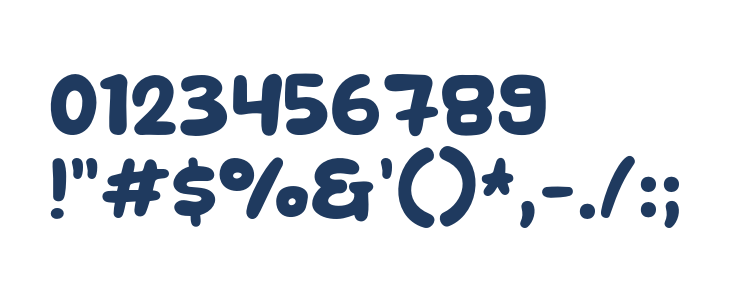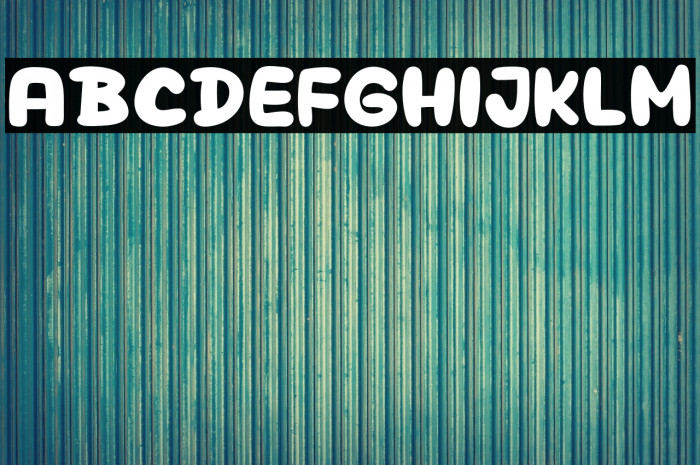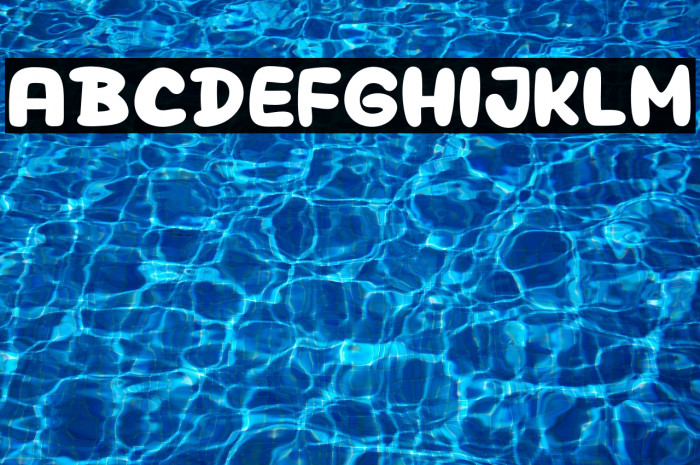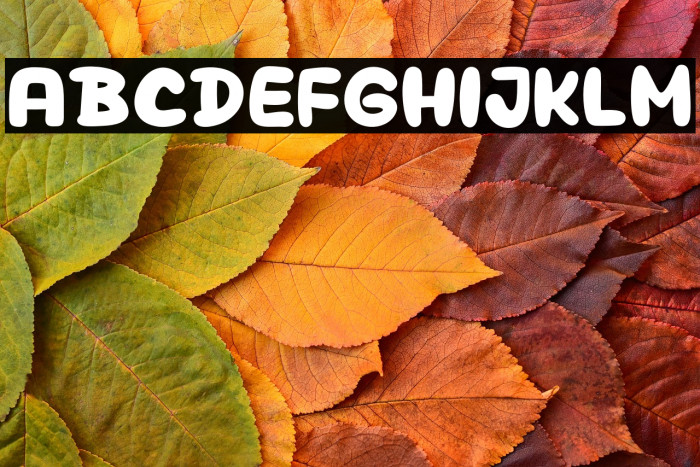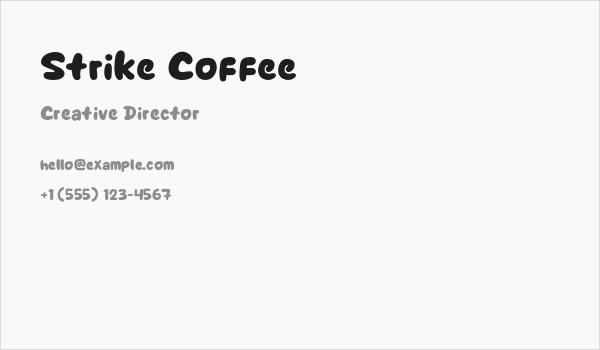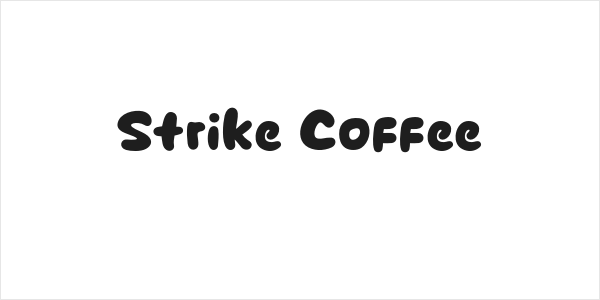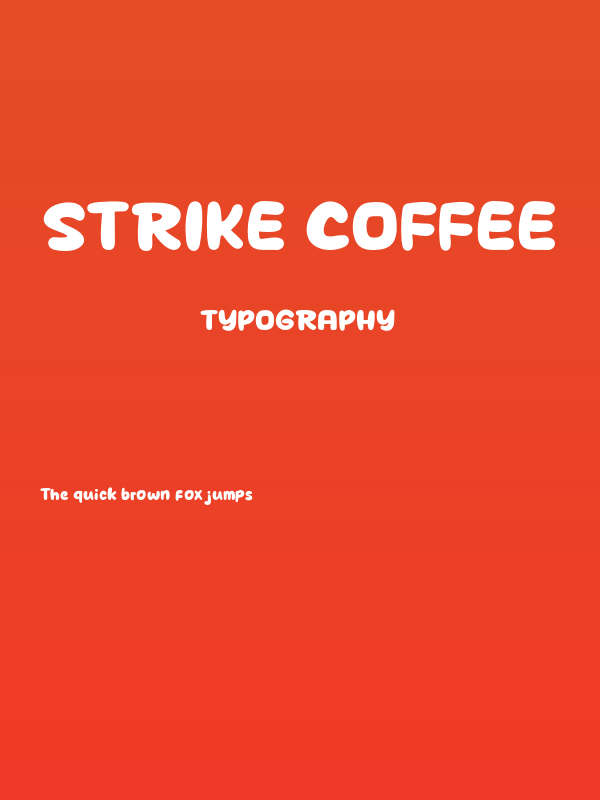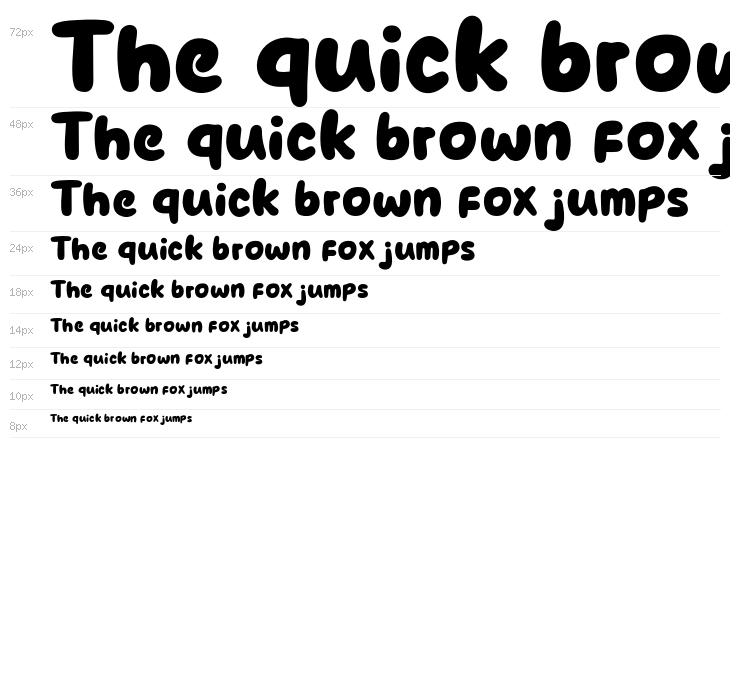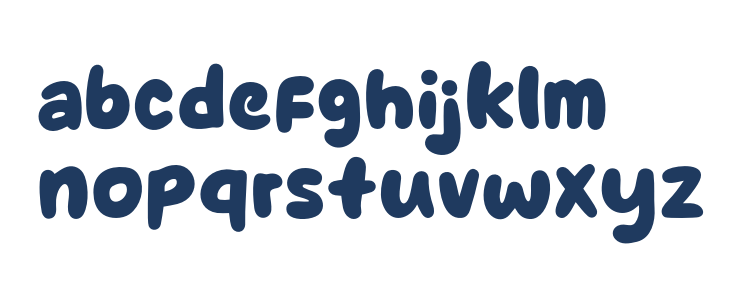
Strike Coffee Font
Strike Coffee Description
This font features a bold and playful design with rounded edges and a slightly irregular form, giving it a friendly and approachable appearance. The characters are thick and substantial, making them highly legible and impactful. The style is reminiscent of hand-drawn lettering, adding a touch of whimsy and charm. The consistent stroke width across all characters contributes to a cohesive look, while the rounded terminals soften the overall feel. This font is versatile and can be used to convey a sense of fun and creativity.
| Proposed Projects | Ideal for children's books, playful branding, posters, and social media graphics. |